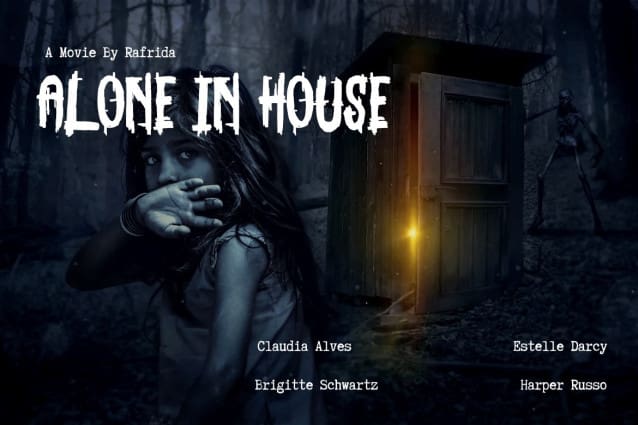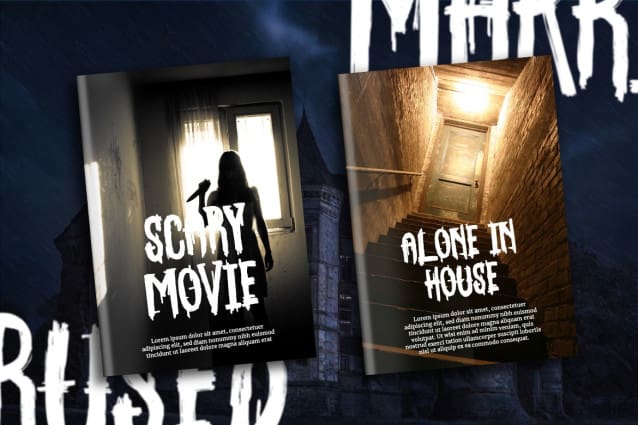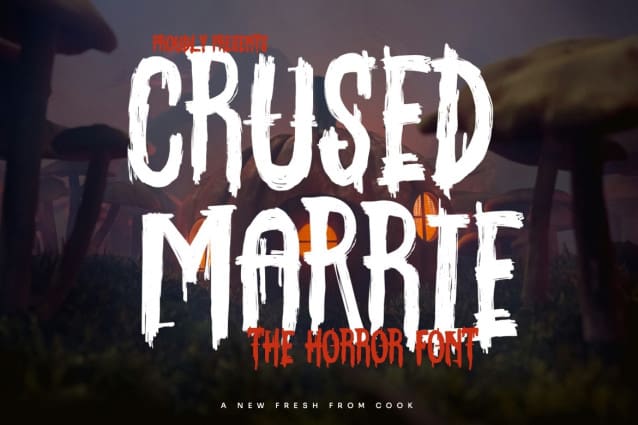
Crused Marrie Font
Crused Marrie Font is a challenging and very popular horror brush font, comes in a modern style to become a favorite with the market. Is elegant, classy, ​​easy to read, stylish, attractive and easy to use.